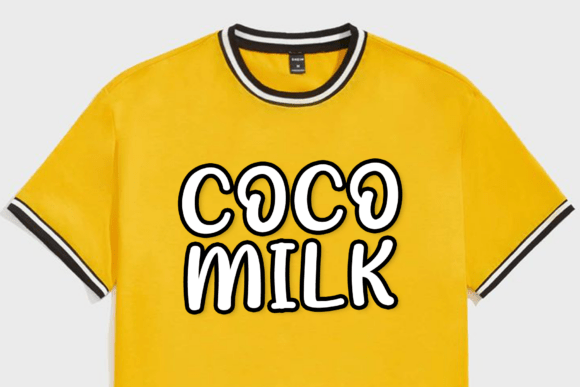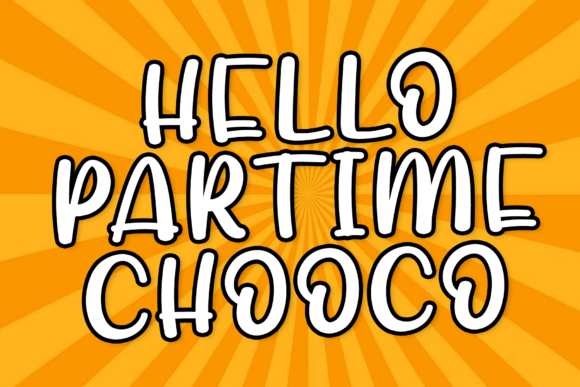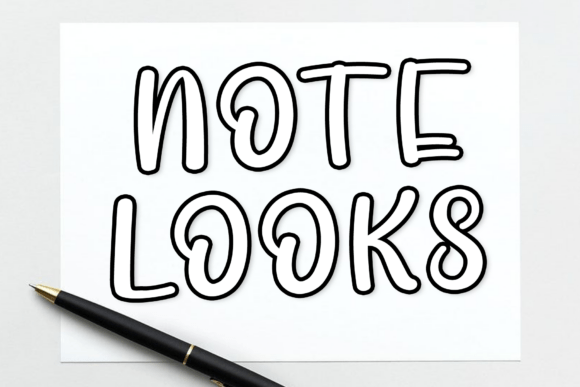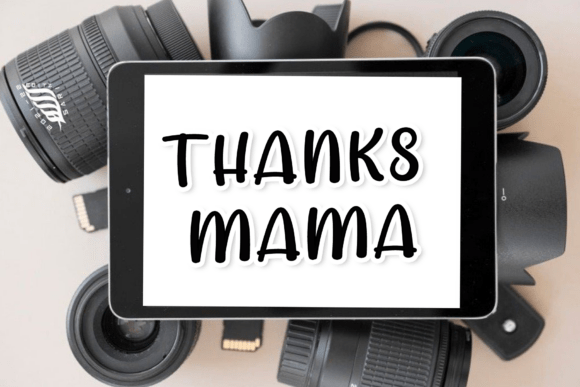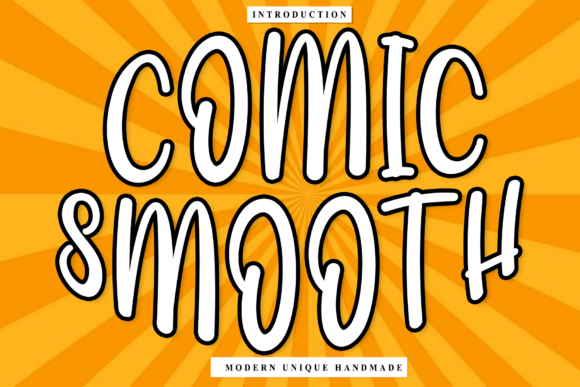
Introducing Comic Smooth Font: The Ultimate Choice for Designers and Crafters
Are you tired of using the same old fonts for your designs? Look no further! Comic Smooth Font is a lovely and timeless handwritten font that is sure to take your designs to the next level. With its unique and beautiful touch, this font is perfect for creating eye-catching logos, branding, and quotes that will leave a lasting impression on your audience.
The Characteristics of Comic Smooth Font
Comic Smooth Font is a handwritten font that exudes a sense of warmth and personality. Every letter has a unique and beautiful touch, which makes it perfect for designs that require a personal and humanizing element. The font is smooth, flowing, and elegant, making it suitable for a wide range of design applications, from logos and branding to quotes and social media graphics.
Why Choose Comic Smooth Font?
So, why should you choose Comic Smooth Font for your designs? Here are just a few reasons:
- Unique and Beautiful Touch: Every letter in Comic Smooth Font has a unique and beautiful touch that will make your designs stand out from the crowd.
- Timeless Appeal: This font has a timeless appeal that will never go out of style. Whether you’re creating a logo, branding, or quote, Comic Smooth Font will add a touch of elegance and sophistication to your design.
- Versatility: Comic Smooth Font is versatile and can be used for a wide range of design applications, from logos and branding to quotes and social media graphics.
How to Use Comic Smooth Font in Your Designs
Using Comic Smooth Font in your designs is easy. Here are a few tips to get you started:
- Pair it with Other Fonts: Comic Smooth Font pairs well with other fonts, such as sans-serif fonts like Arial or Helvetica. Experiment with different font combinations to create a unique and eye-catching design.
- Use it for Headlines: Comic Smooth Font is perfect for headlines and titles. Use it to create eye-catching headings that will grab the attention of your audience.
- Add a Personal Touch: Comic Smooth Font adds a personal touch to your designs. Use it to create designs that are humanizing and relatable.
Design Ideas Using Comic Smooth Font
Here are a few design ideas to get you started with Comic Smooth Font:
- Logo Design: Use Comic Smooth Font to create a unique and eye-catching logo for your business or brand.
- Branding: Use Comic Smooth Font to create a consistent brand identity across all your marketing materials, from business cards to brochures.
- Quote Graphics: Use Comic Smooth Font to create inspiring and motivational quote graphics for social media.
- Social Media Graphics: Use Comic Smooth Font to create eye-catching social media graphics, from Facebook posts to Instagram stories.